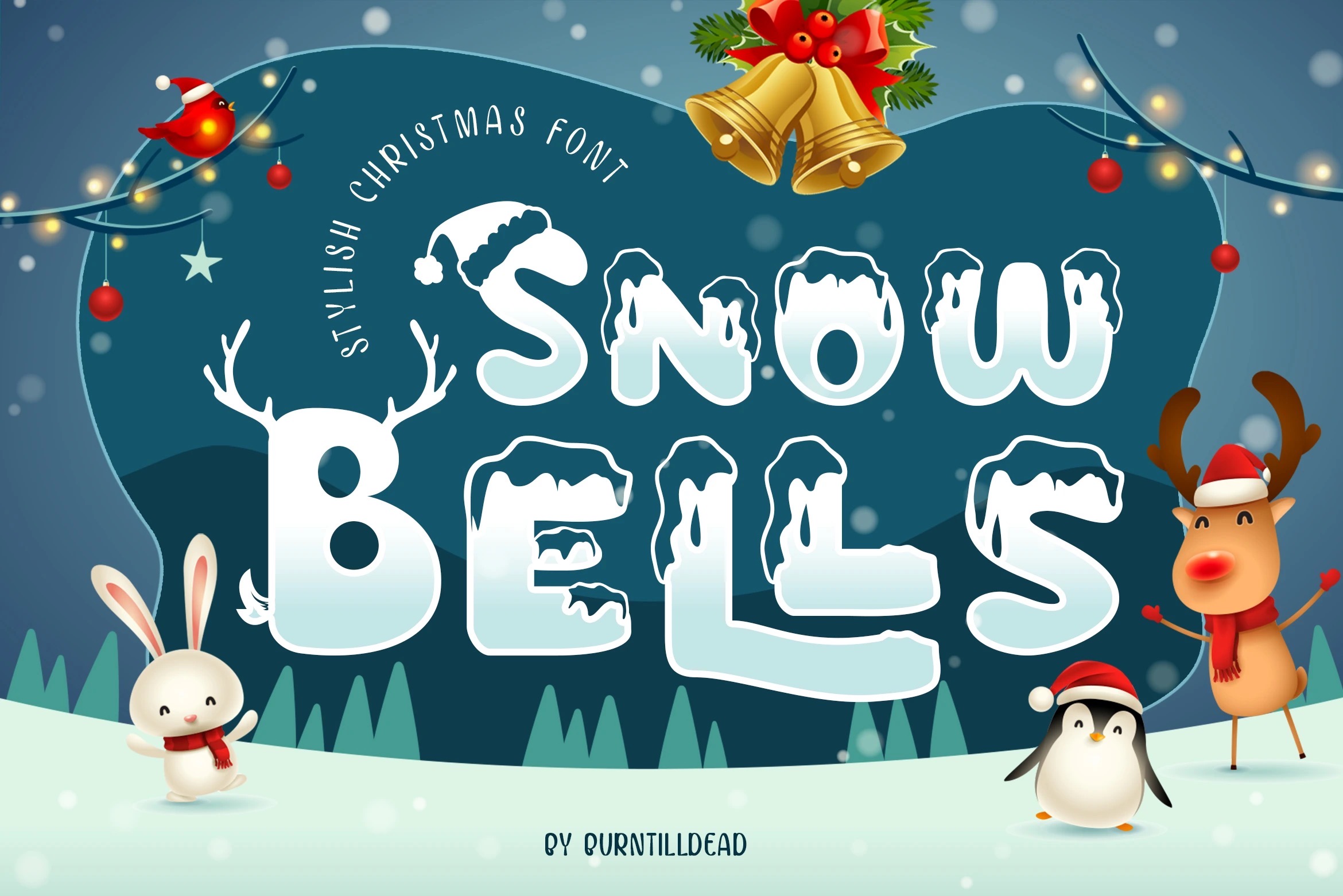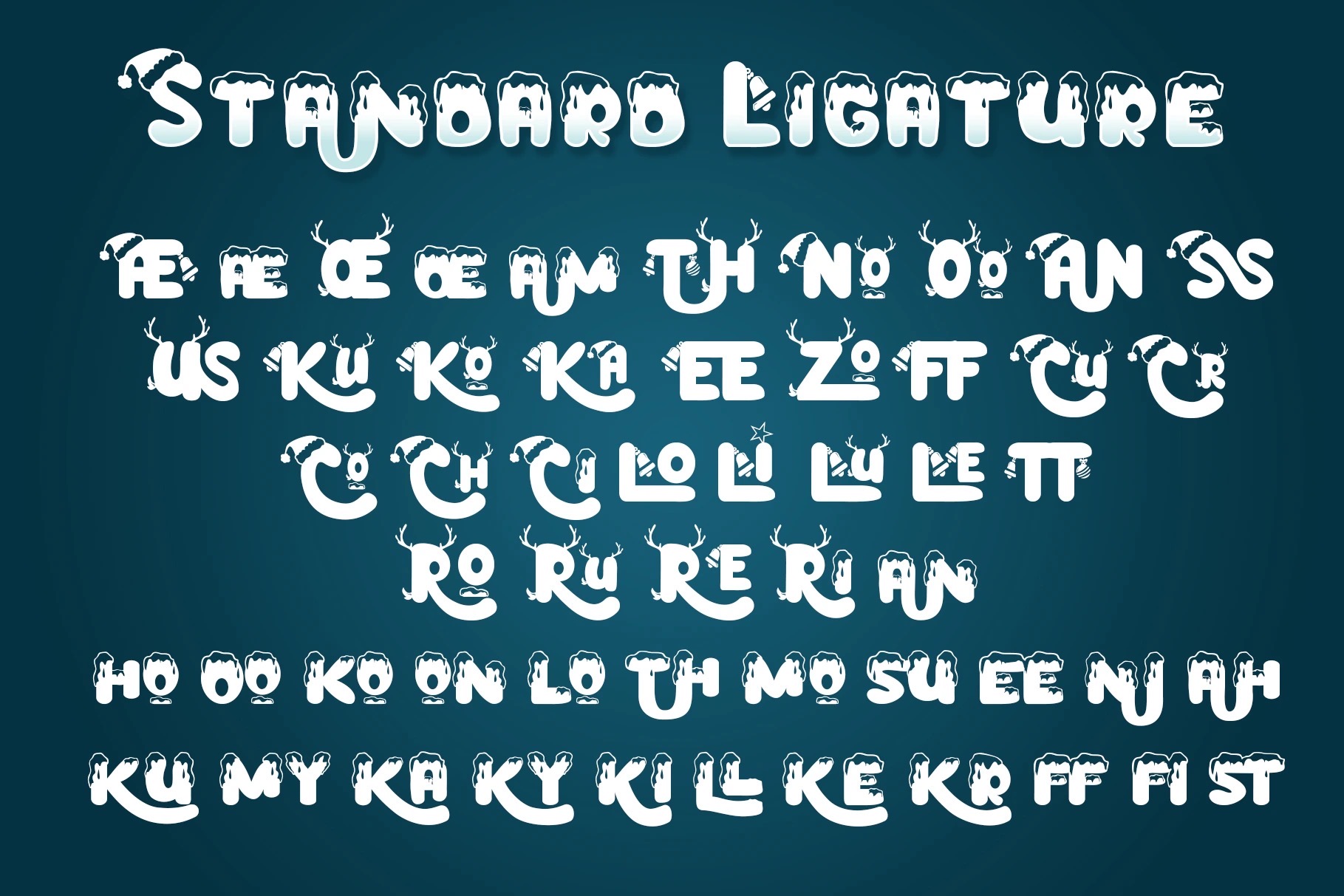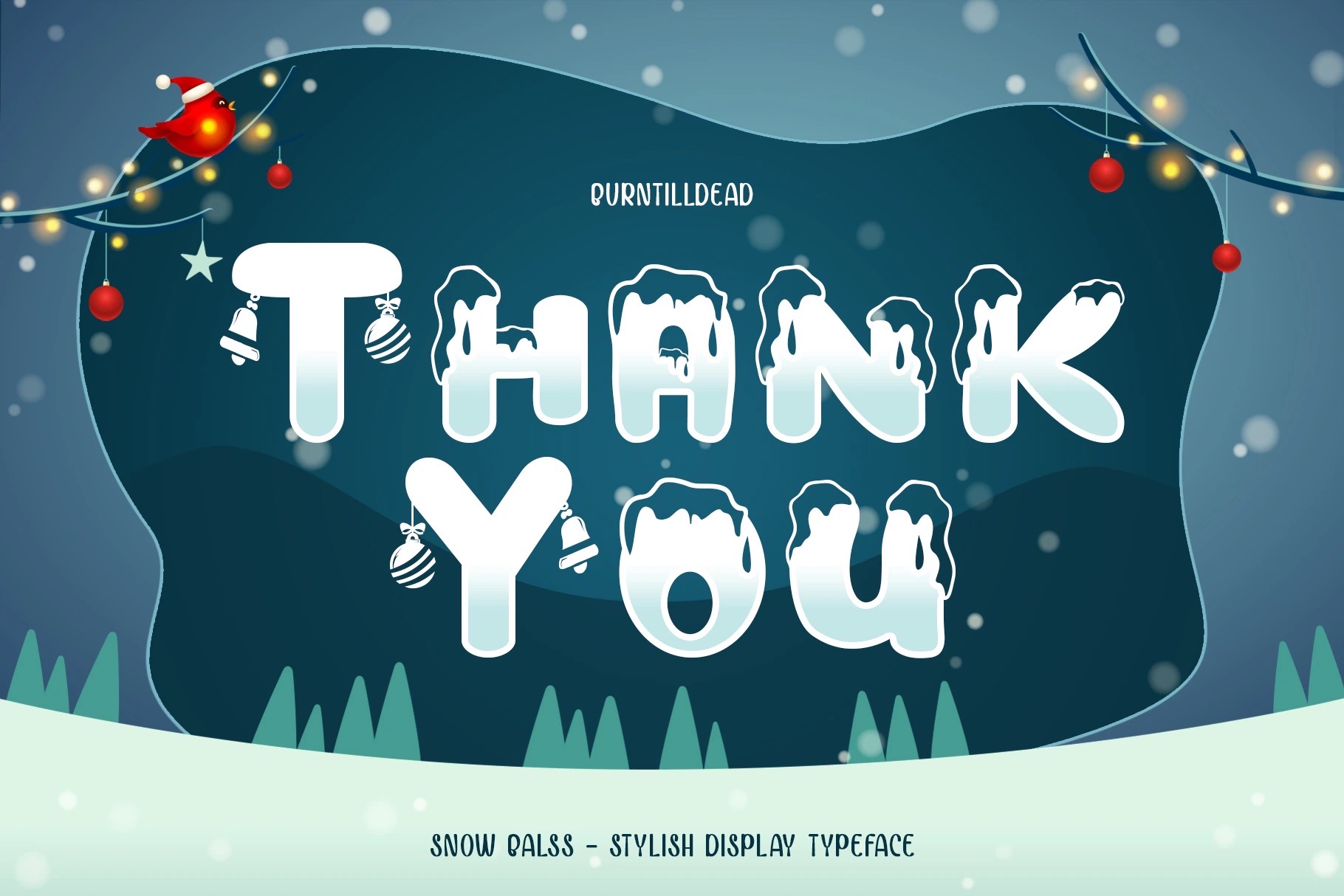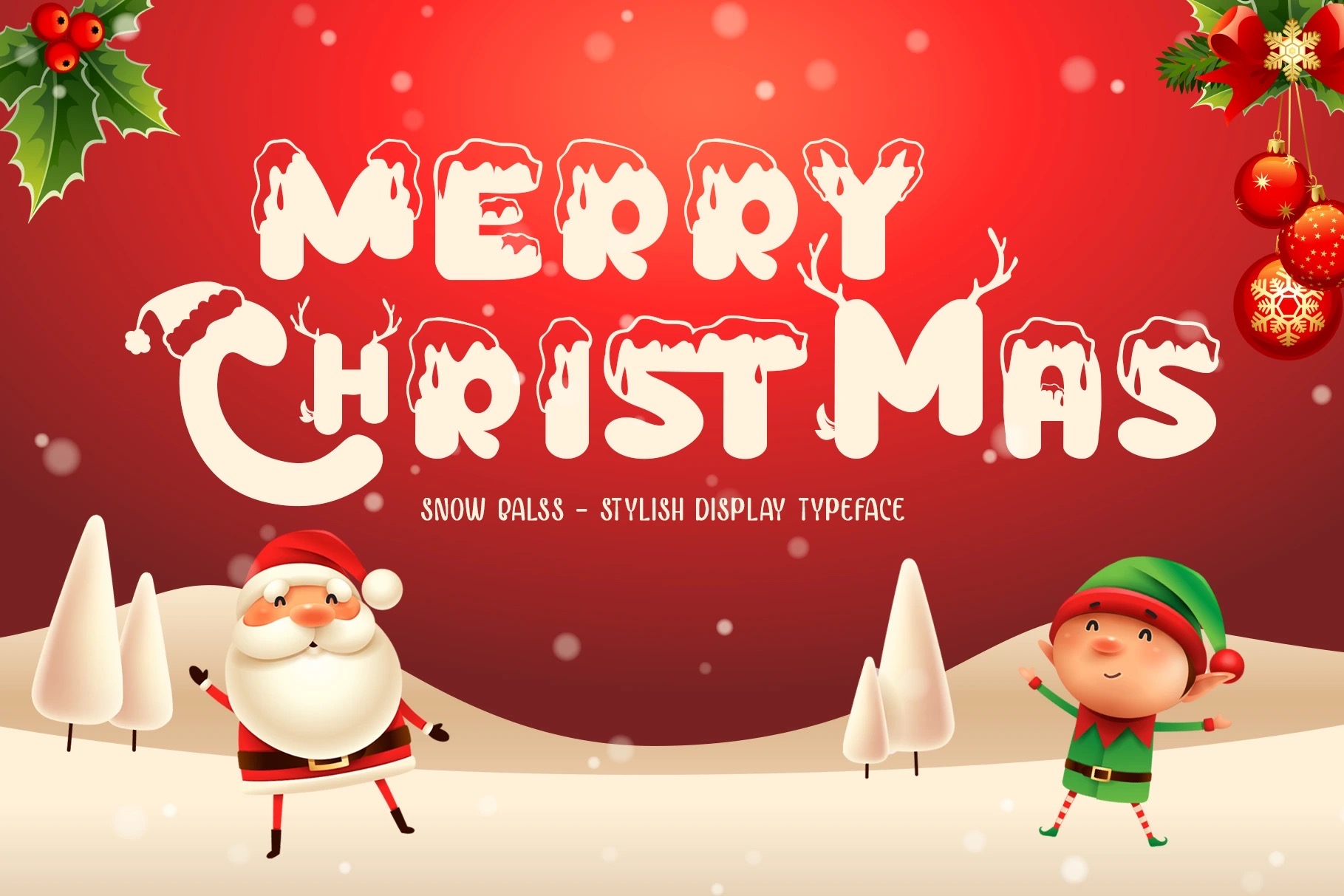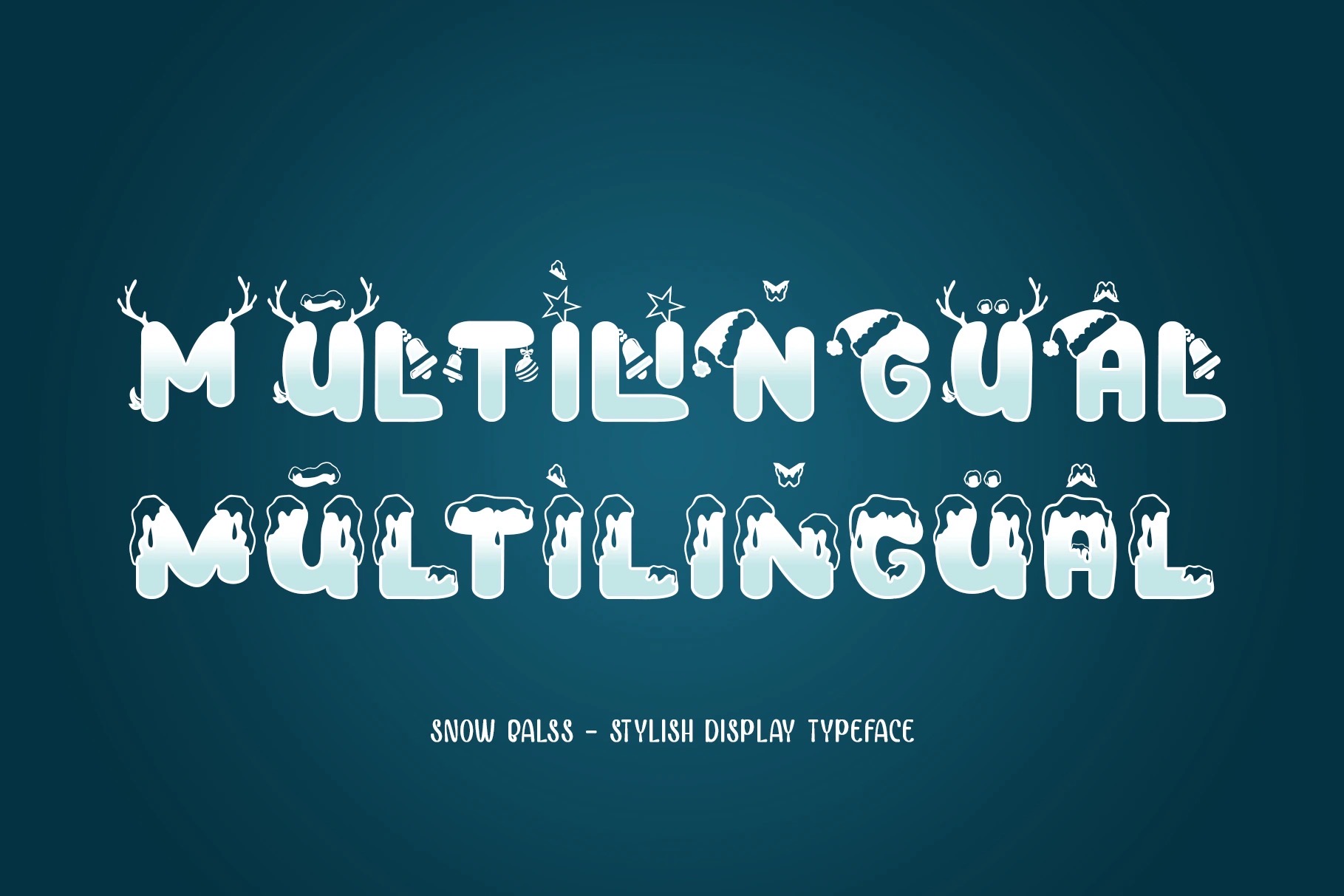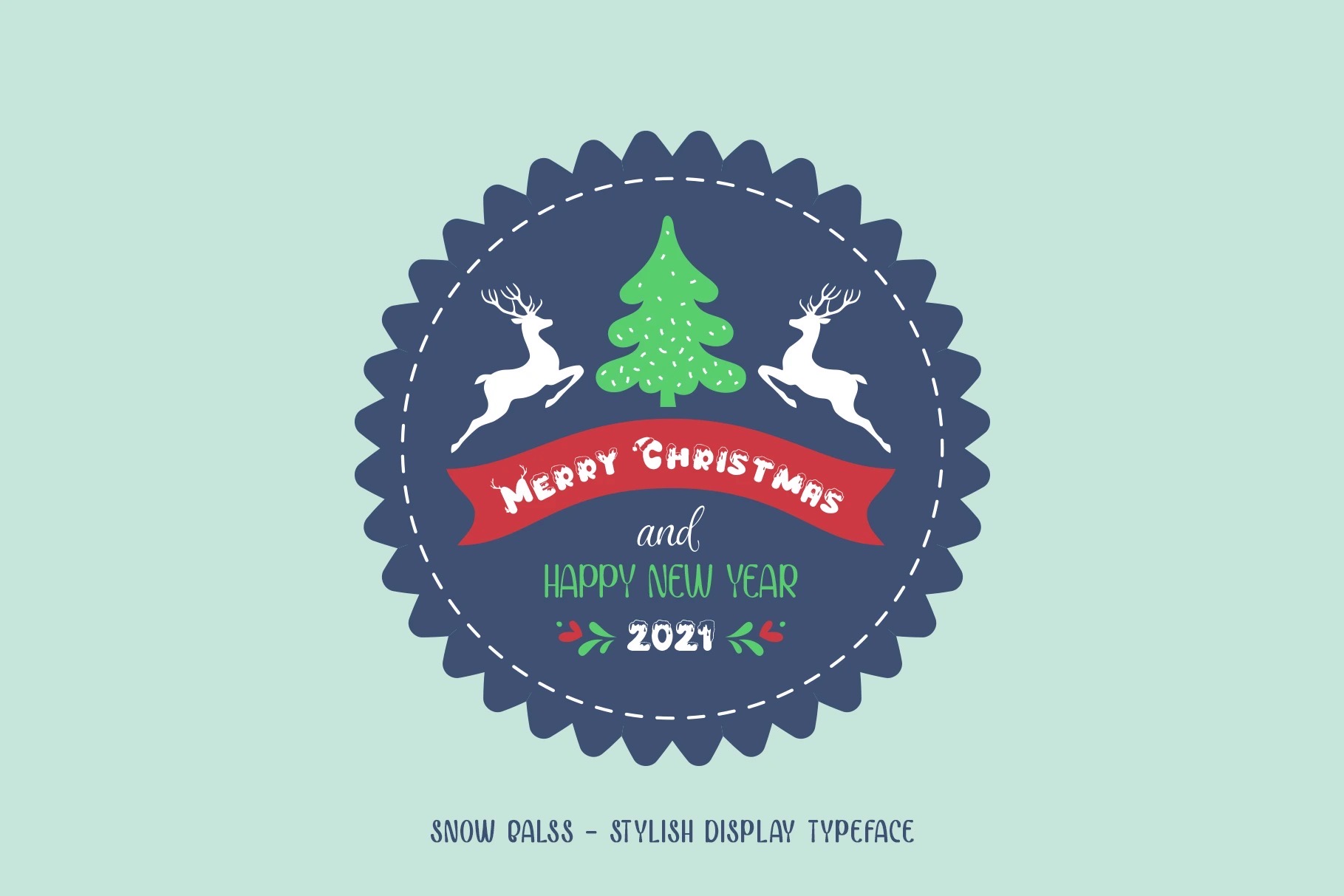
Snow Bells
So Christmas is near tho, make sure to complete all your graphic works with “Snow Bells” Font, A modern stylish font with iconic visual of winter holiday season.
Really great for the design of poster, Big sale sign, greeting card , packaging designs, New Year design and so on with the elegant Christmas & new year concept.
• A – Z set (Uppercase & Lowercase)
• Number
• Punctuation
• Alternates
• Ligatures
• Multilingual